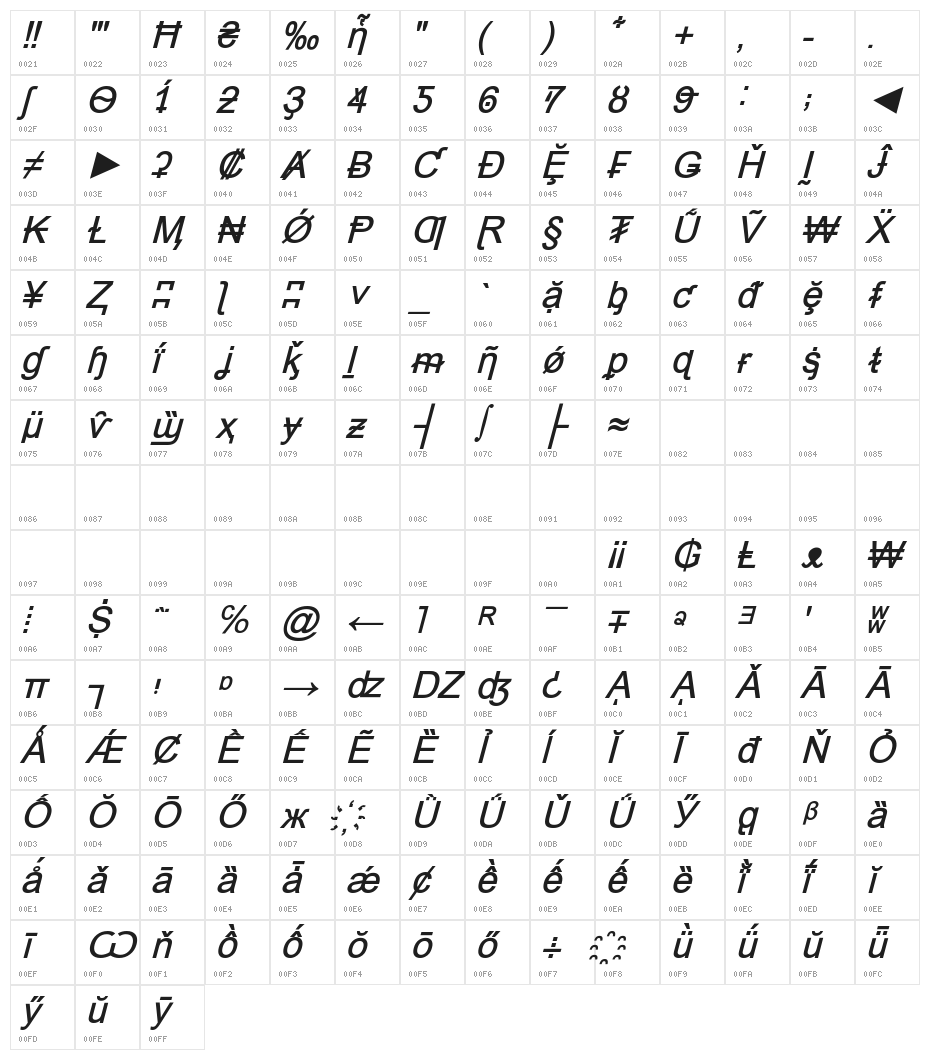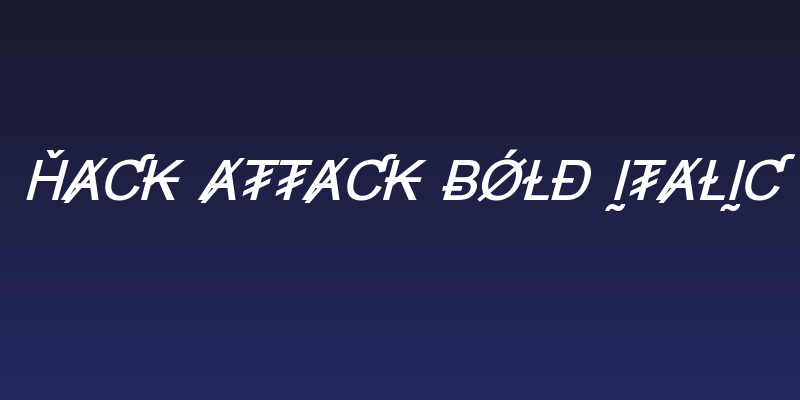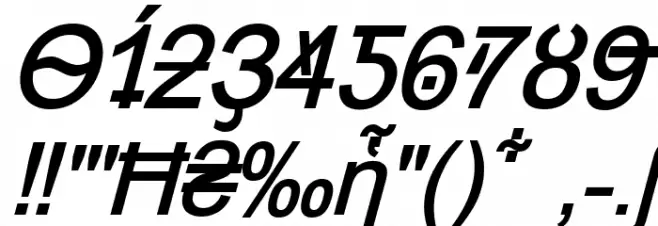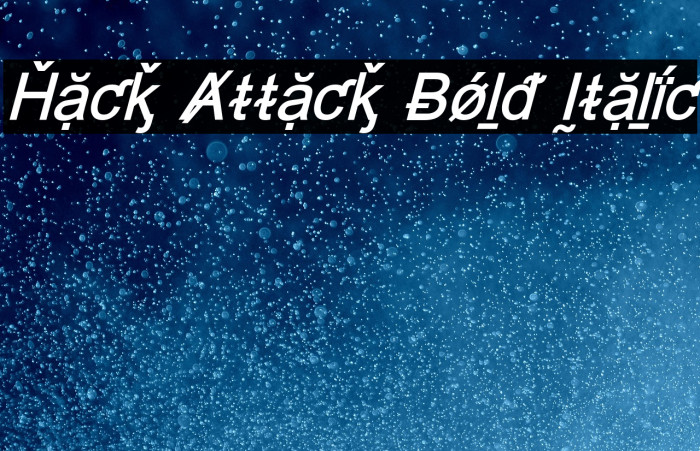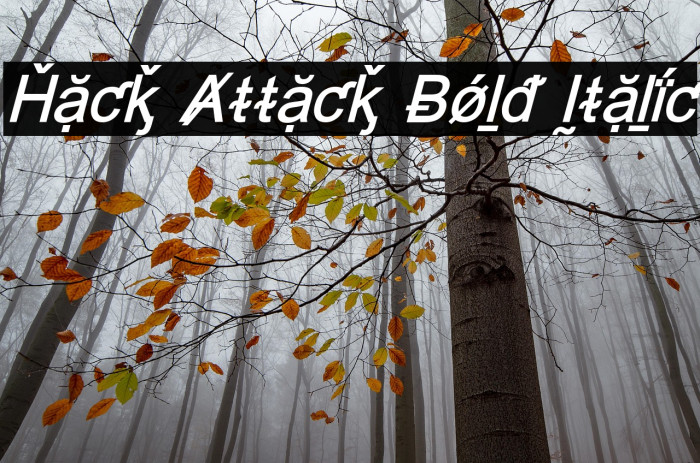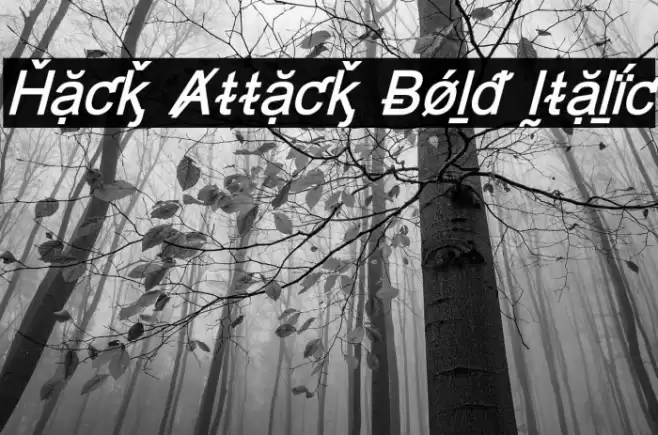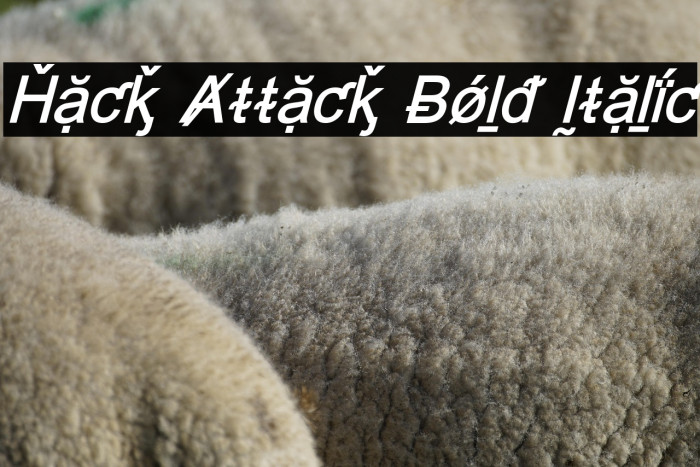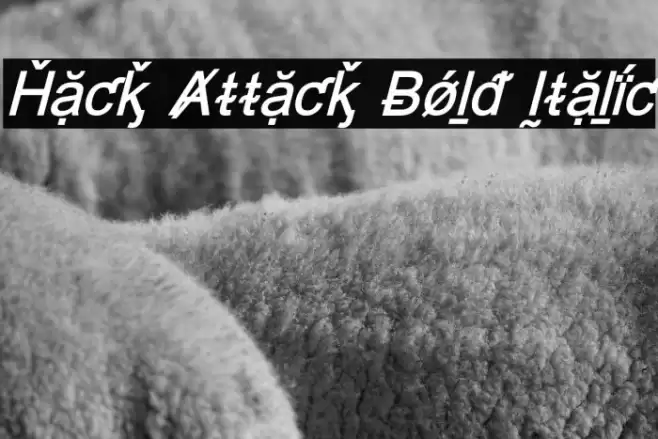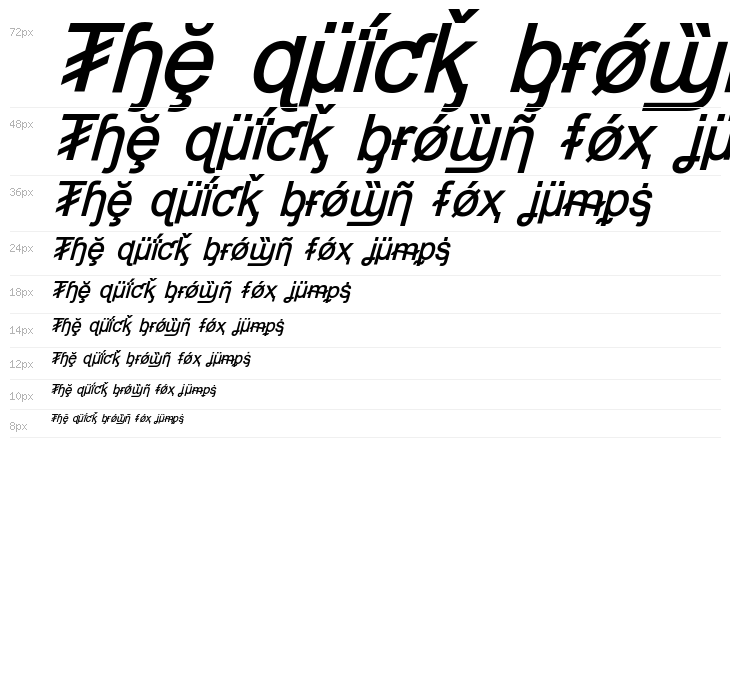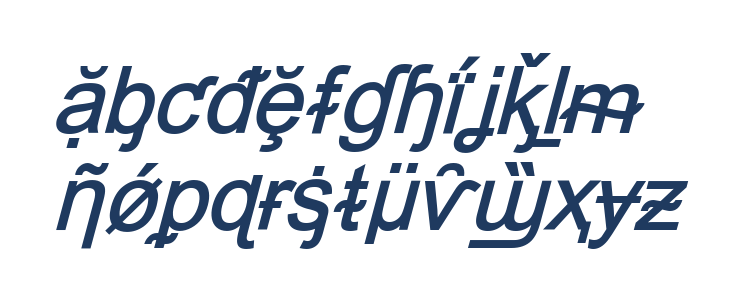
Hack Attack Bold Italic Font
This font features a bold and italicized style with a modern, edgy appearance. The characters are slightly slanted, giving a dynamic and energetic feel. The strokes are thick, providing a strong presence, while the italicization adds a sense of movement. The font includes a wide range of accented characters, making it versatile for various languages. The numbers are consistent with the bold style, ensuring readability. Special characters are also included, maintaining the bold and italicized theme throughout.
| Proposed Projects | Ideal for projects that require a strong, modern look such as tech branding, sports team logos, or dynamic poster designs. |